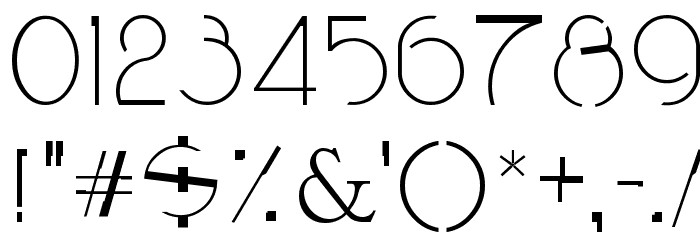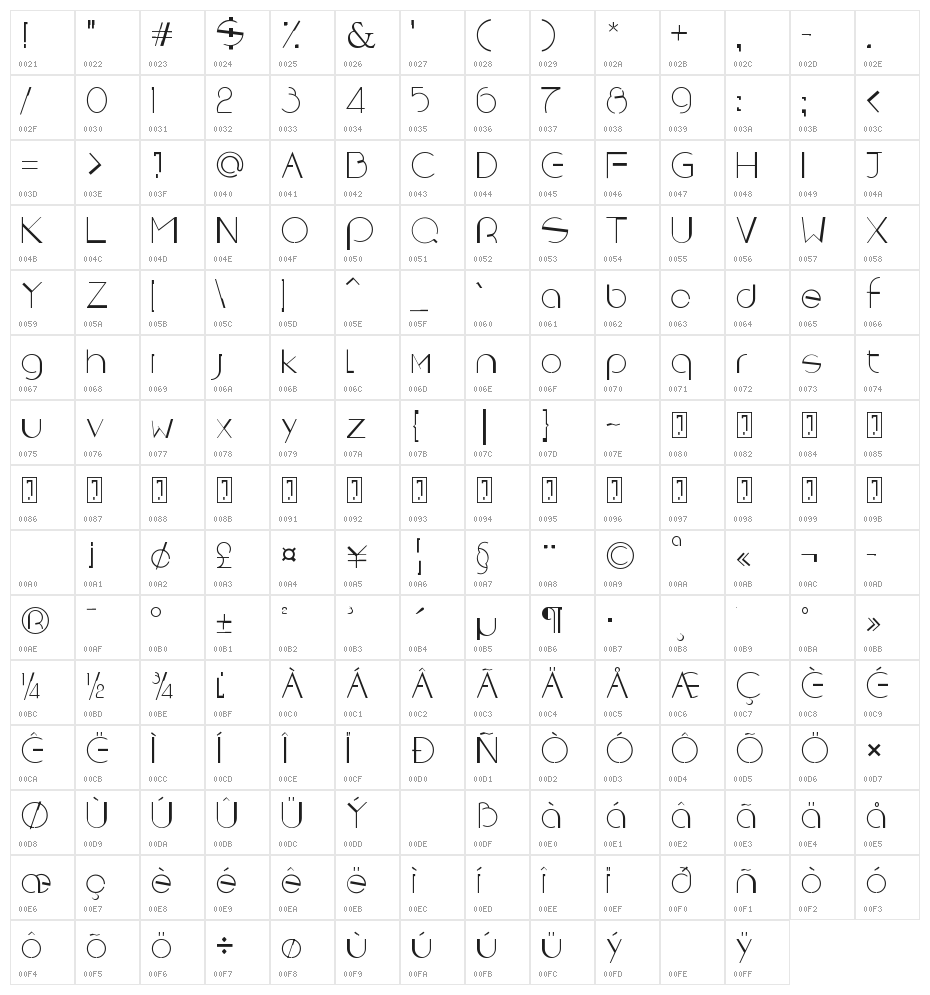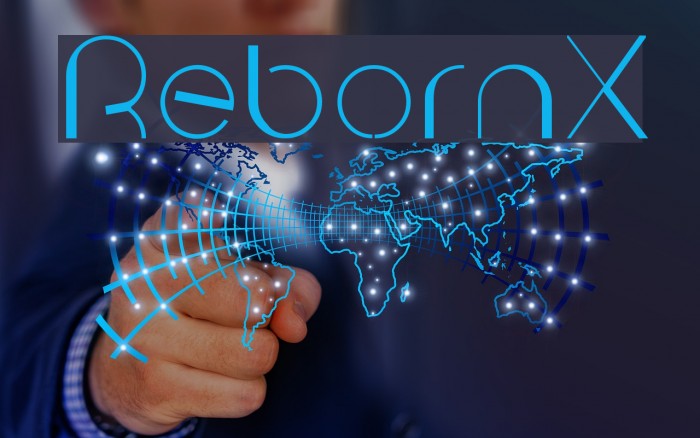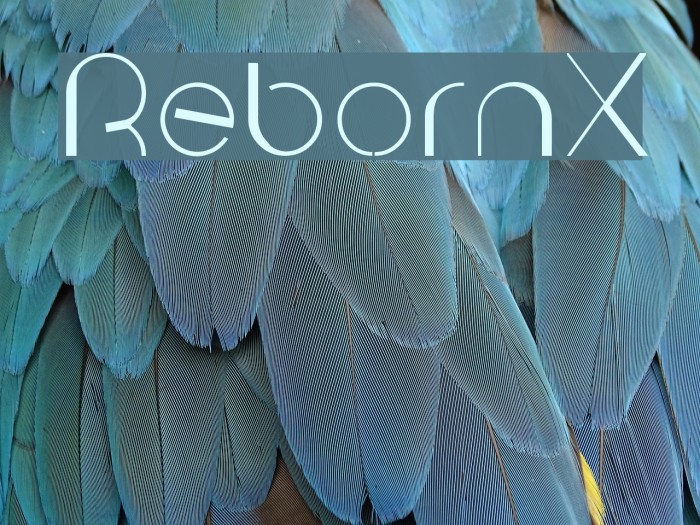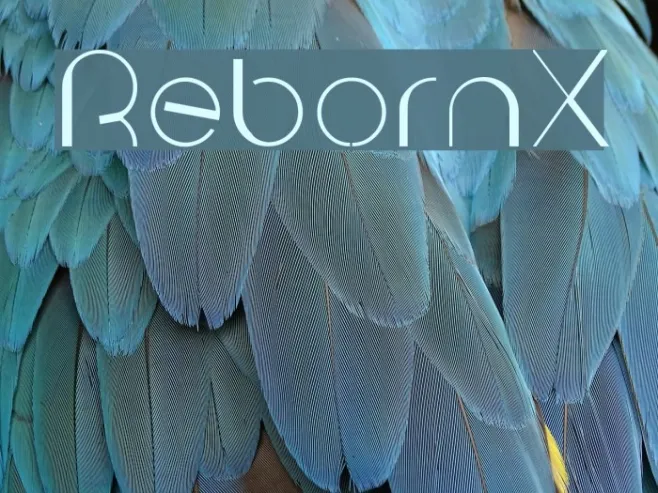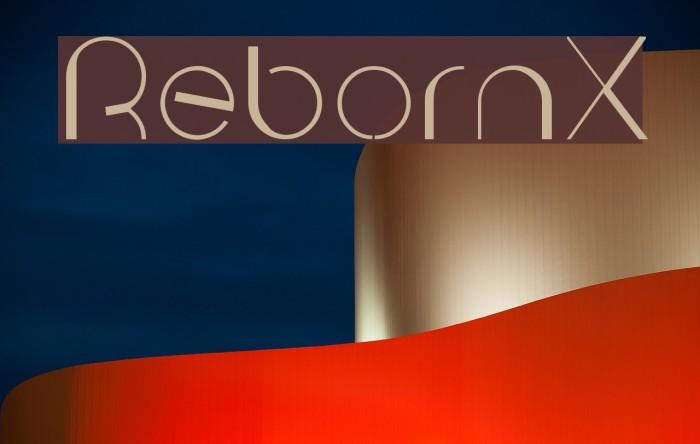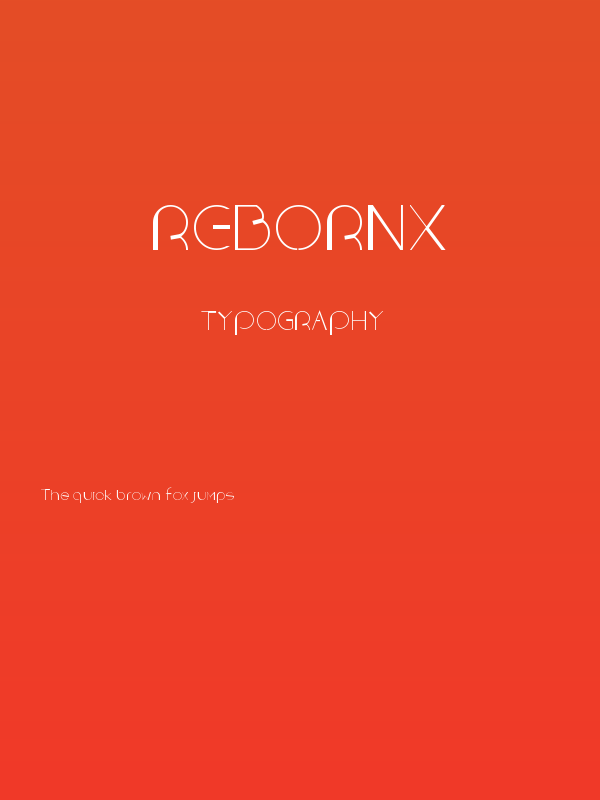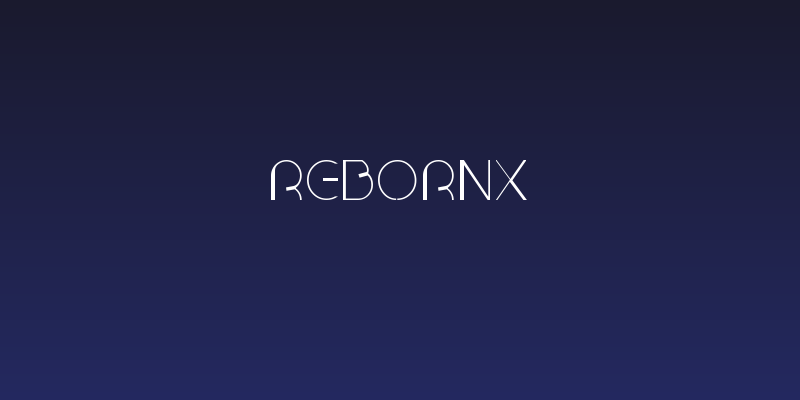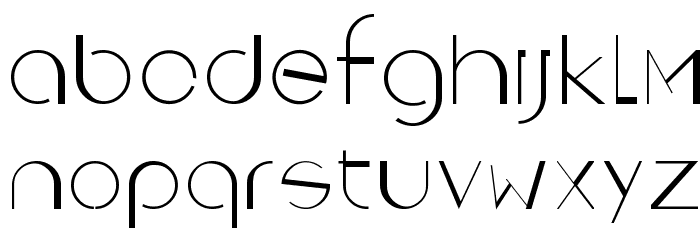
RebornX Font
RebornX Description
This font features a modern, geometric design with clean lines and a minimalist aesthetic. The characters are constructed with a combination of straight lines and smooth curves, creating a sleek and contemporary look. The uppercase letters have a distinctive angularity, while the lowercase letters maintain a consistent roundness, offering a harmonious balance. The numerals are equally stylish, with a uniform height and width that complements the overall design. Special characters are thoughtfully integrated, maintaining the font's cohesive appearance. This font is ideal for projects that require a modern and sophisticated touch.
| Proposed Projects | Ideal for branding, logos, headlines, and editorial design where a modern aesthetic is desired. |